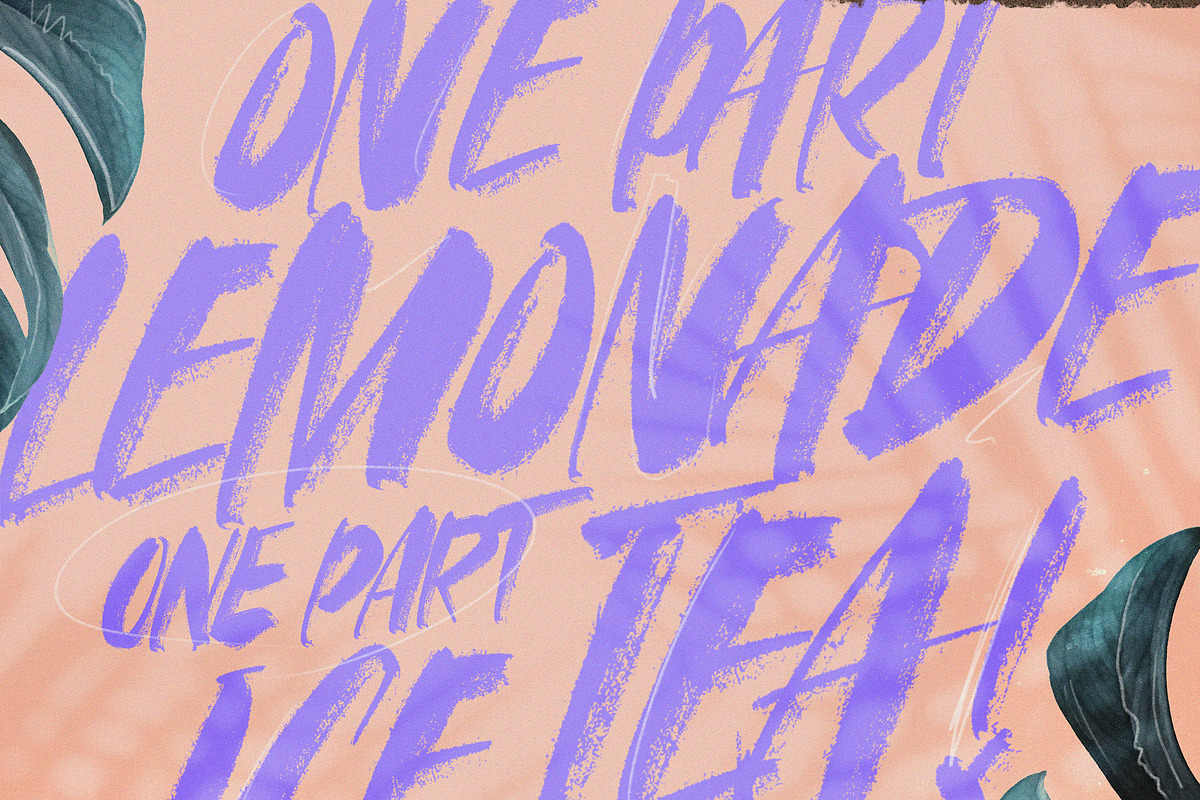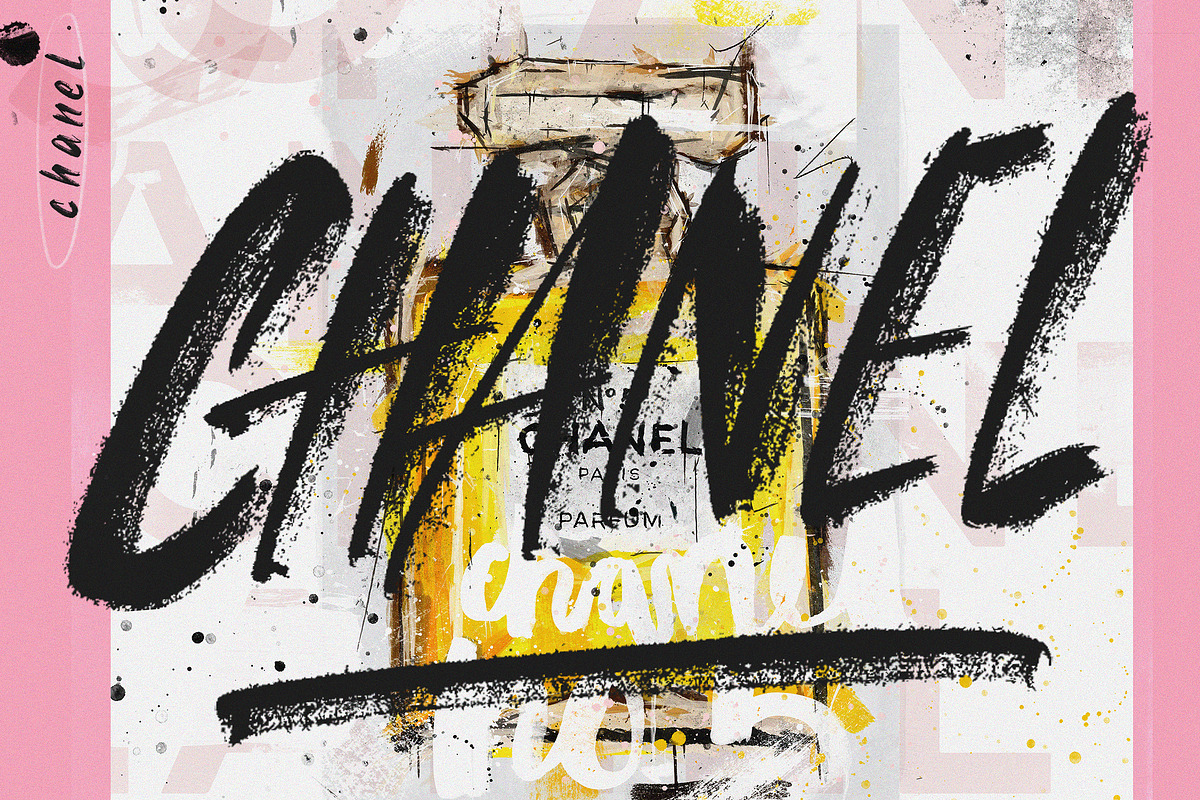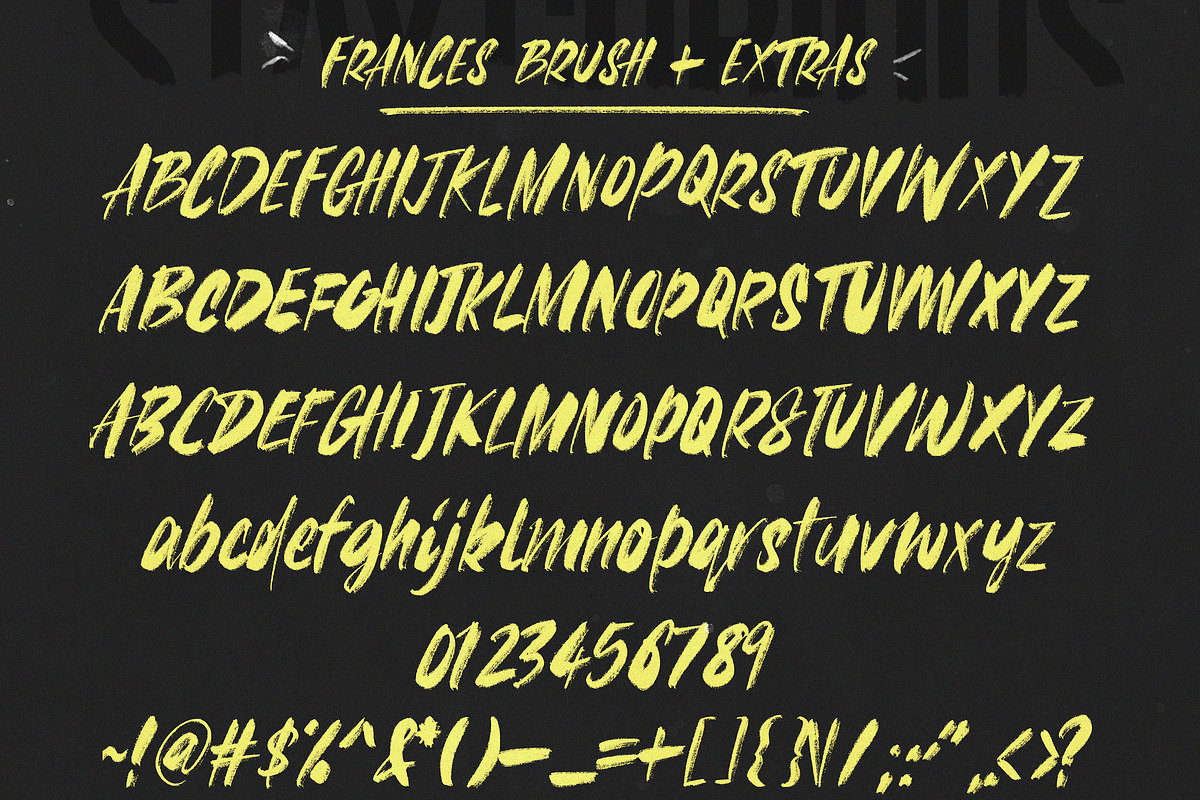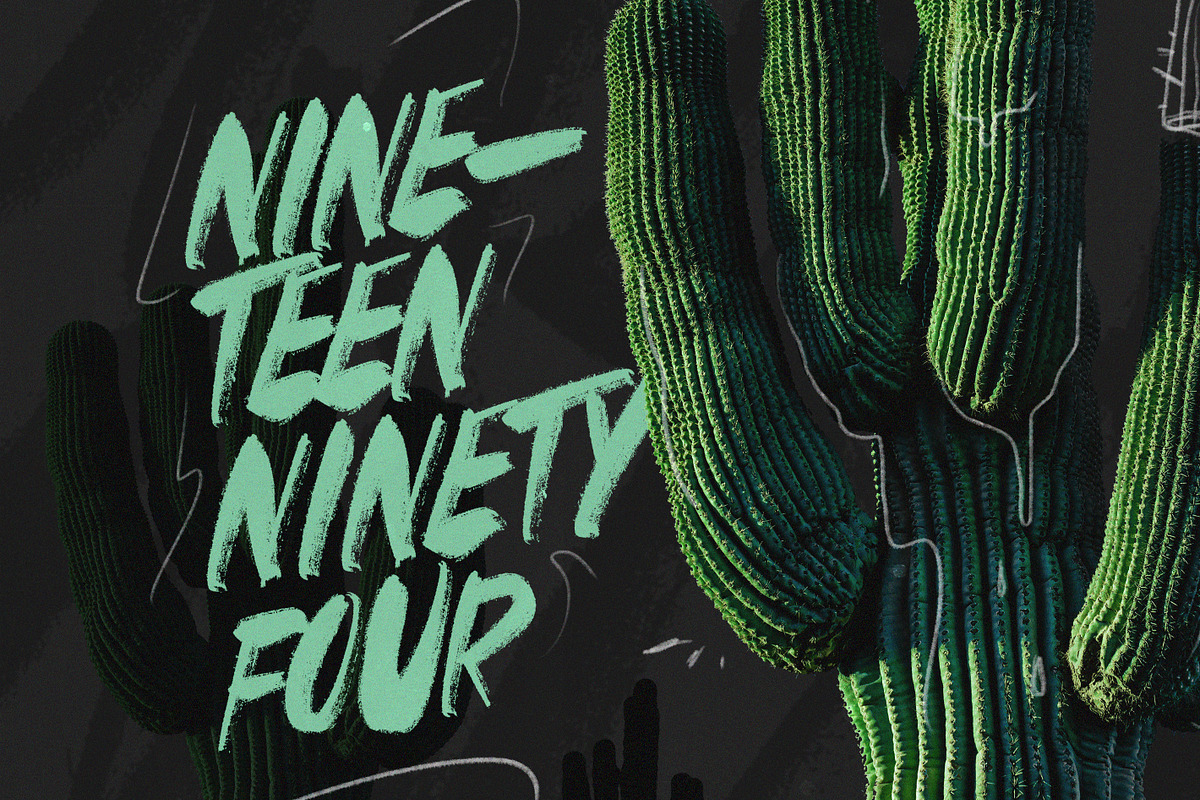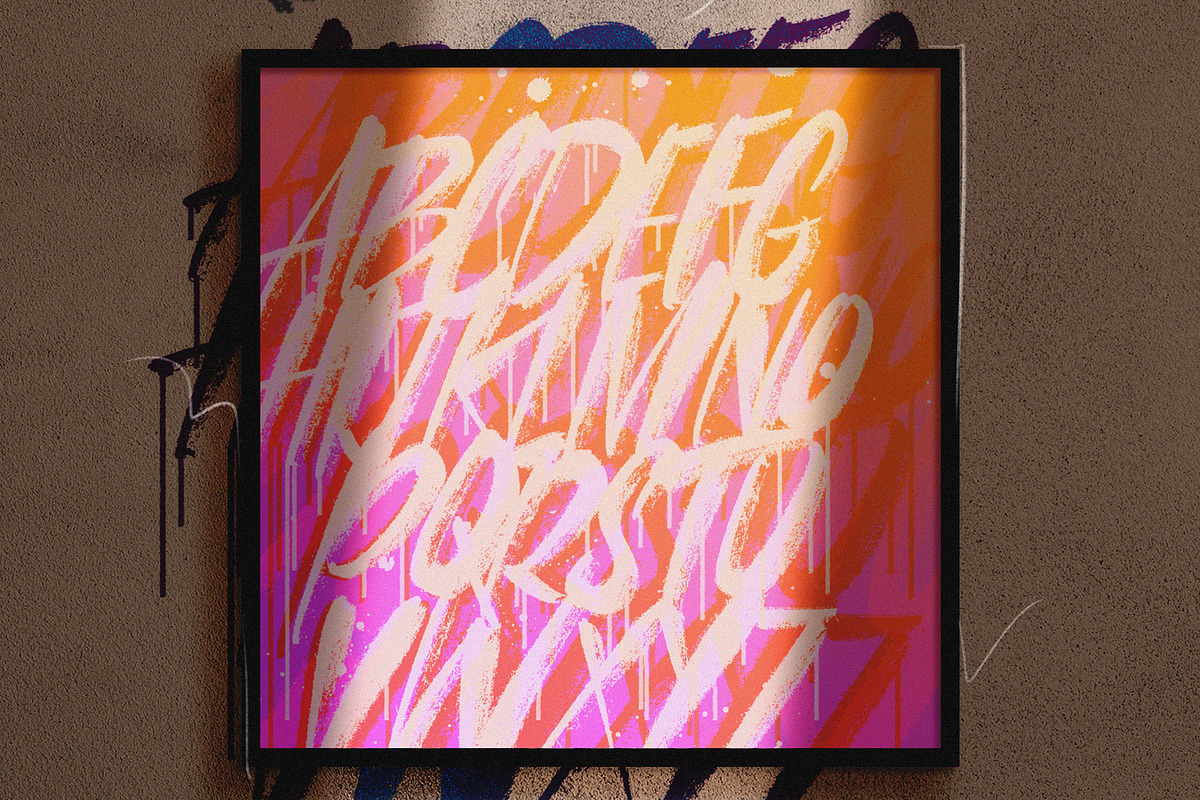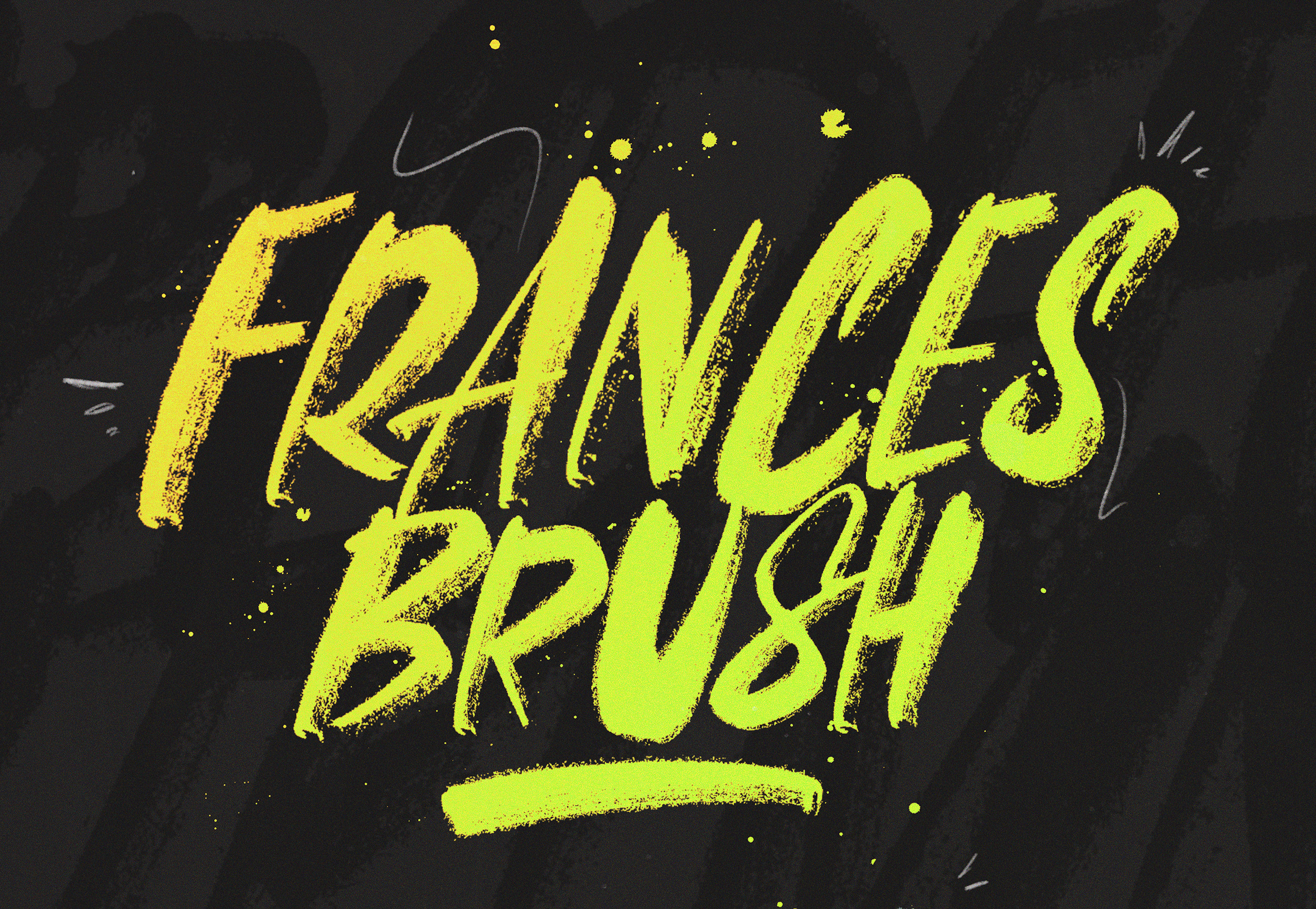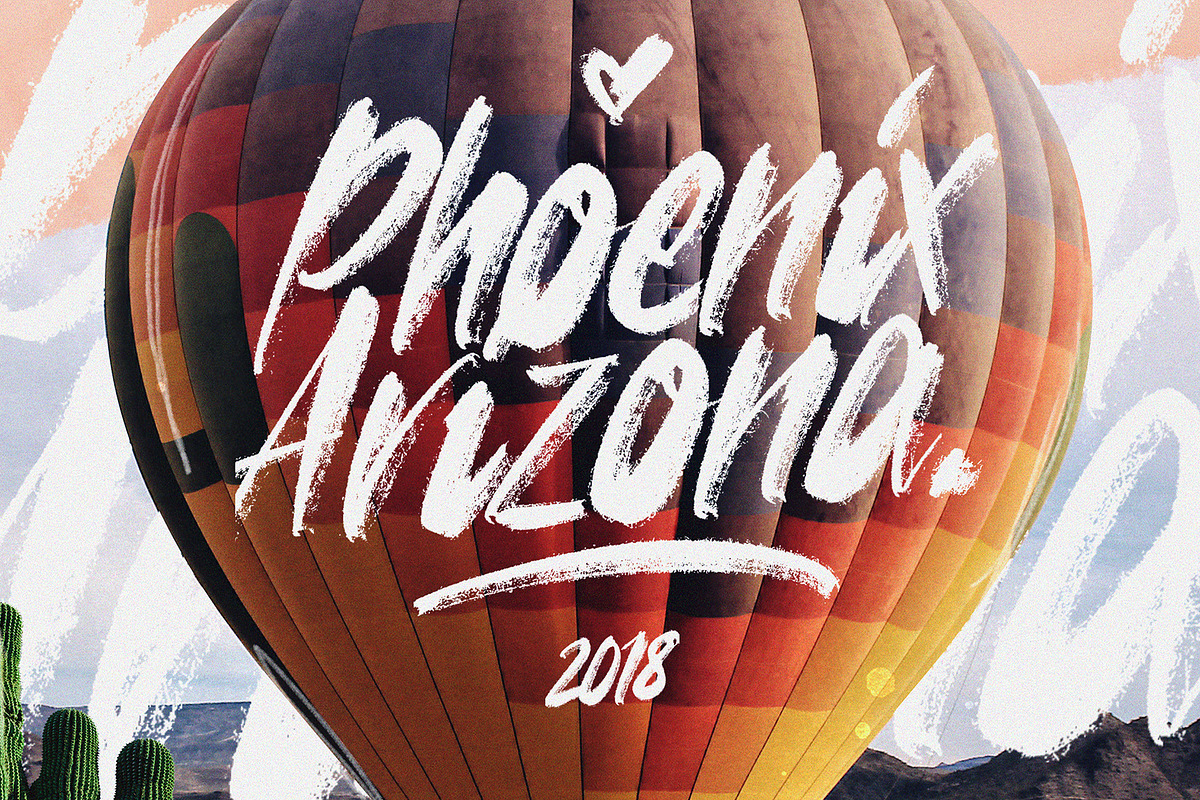
FRANCES BRUSH SVG Font
Introducing Frances Brush.
Frances Brush is a completely unique and custom hand written font. it comes with 3 type variations, so each word and letter is interchangeable to look different and feel like it’s actually been brushed on paper! I’ve included extra underlines and also a psd and vector splatter texture, that can be used for any project and gives your work that little something extra. This font is perfect for any design project.
Features: All Caps Fonts x3 Alt / Lowercase / Numerals / Punctuations / Extras.